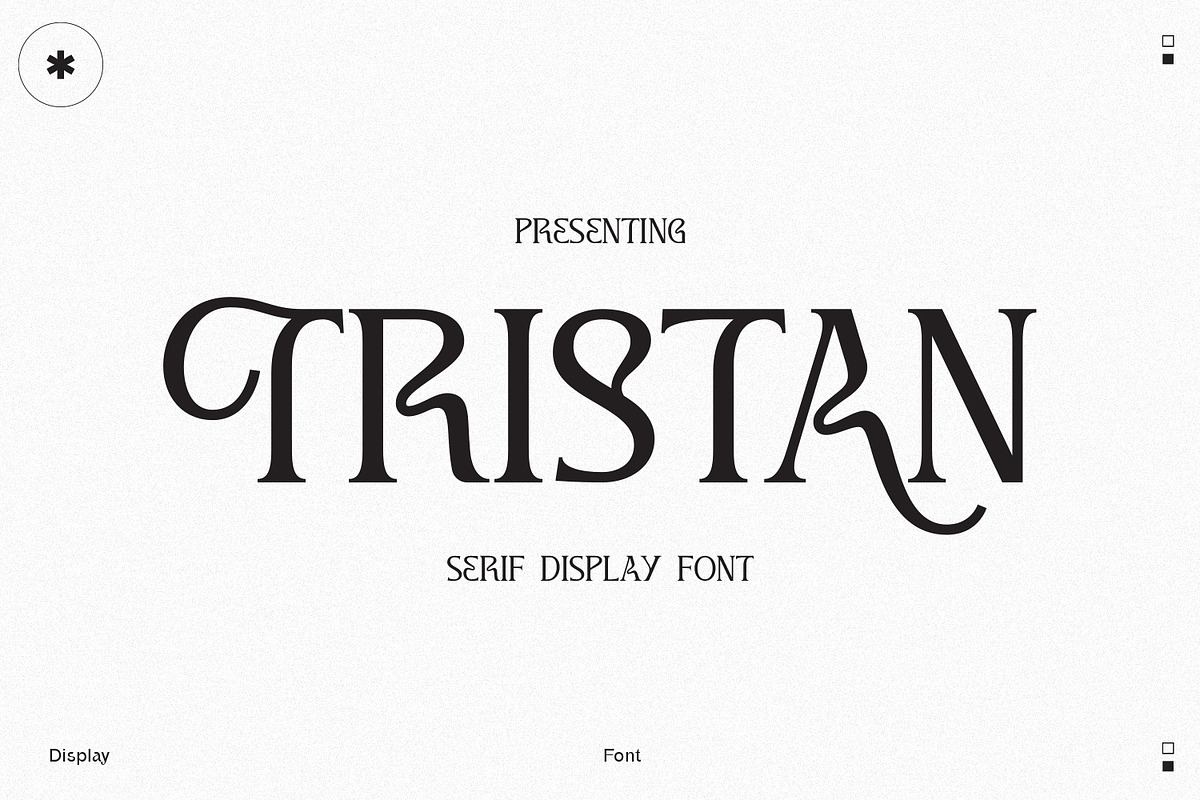
Tristan Font Free Download is a modern and elegant typeface that blends classic serif charm with contemporary design sensibilities. With its clean lines, subtle contrast, and refined curves, Tristan is perfect for branding, editorial design, high-end packaging, and fashion-related visuals.
Tristan Font Free Download stands out with its timeless look—sophisticated enough for luxury brands yet versatile enough for creative projects across industries. It brings a professional, polished touch to logos, magazine titles, website headers, and business presentations.
The font is highly legible across print and digital formats, making it a reliable choice for designers who value both beauty and function. You’re welcome to test it in mockups or personal design drafts, but a commercial license is required for any professional use. Elevate your typography with the classic elegance of Tristan.